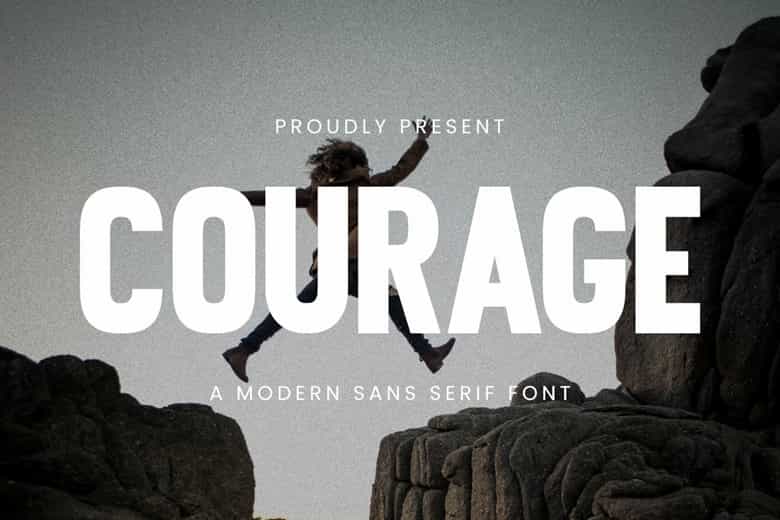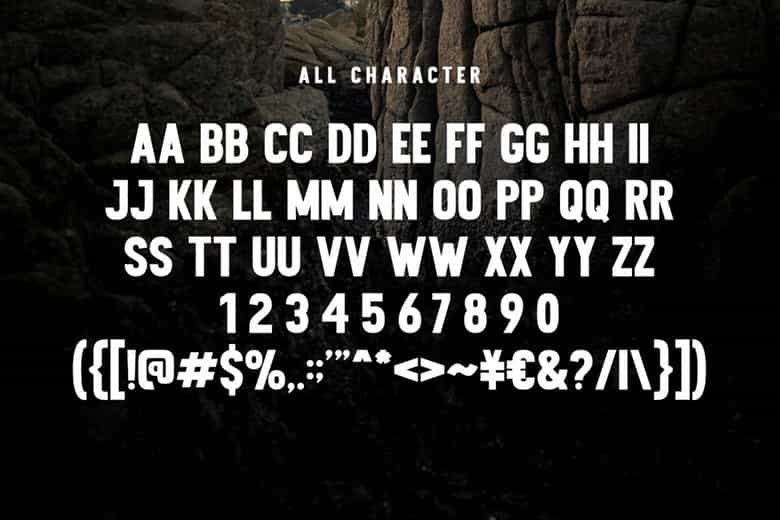
Courage is an elegant bold sans serif font that was created to make a statement and be easily understood. This font is very flexible and can be used in numerous design projects due to its powerful bold lines and imposing nature. Its strong but simple nature lends itself to dynamic headlines, strong branding, grabbing posters, modern editorial design and any project where you need to show confidence and strength. Allow Courage to add some aggressiveness and contemporary flavor to your designs.